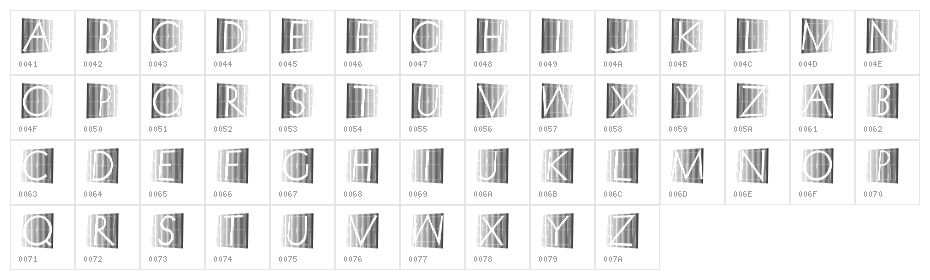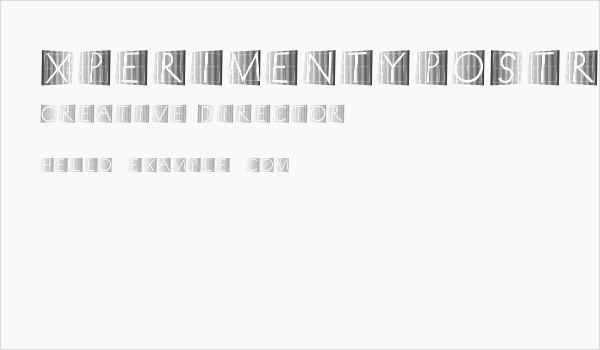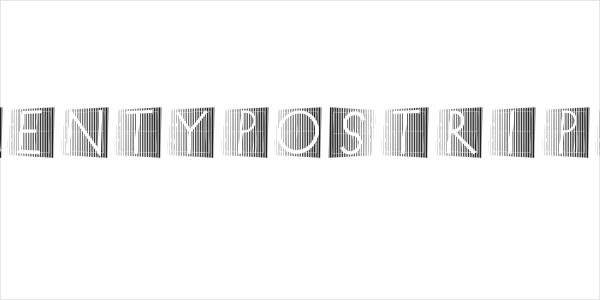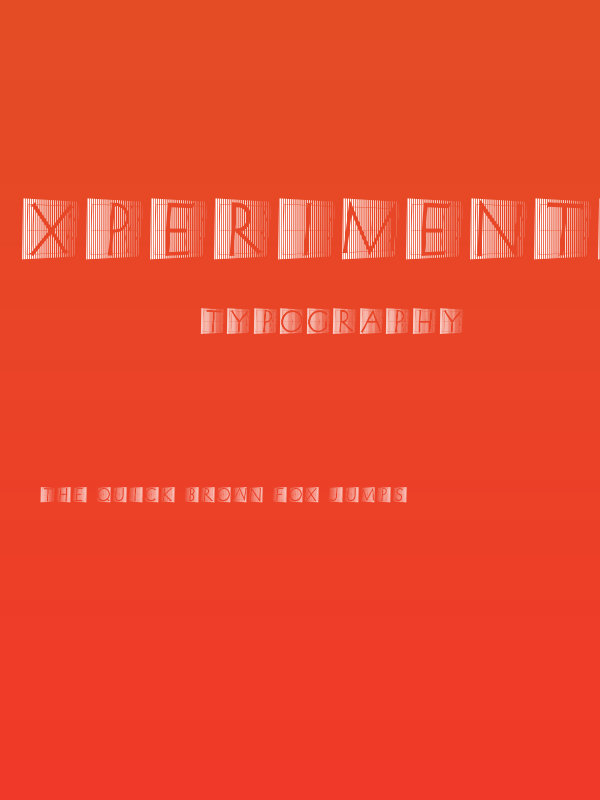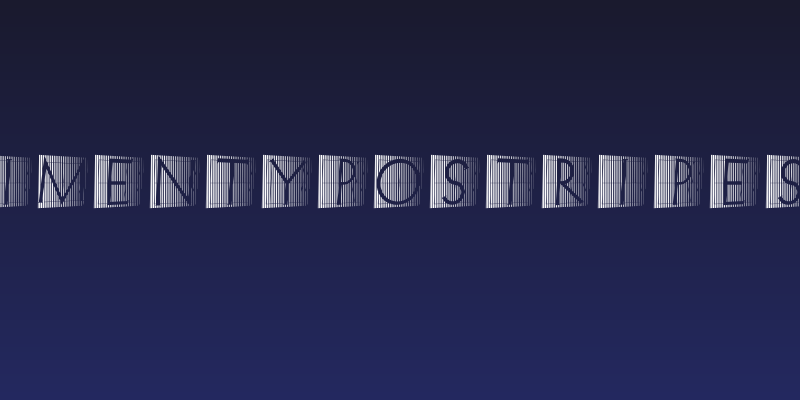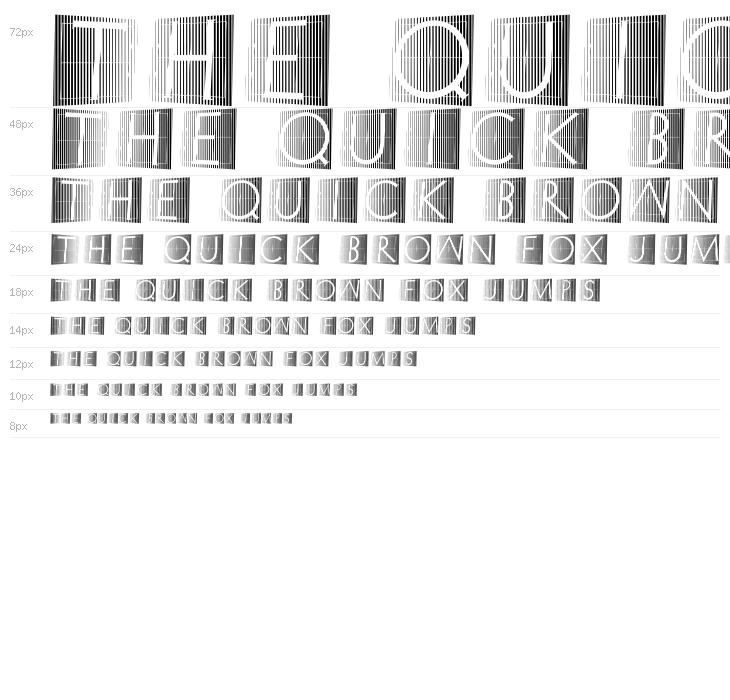
XperimentypoStripes-Two Font
XperimentypoStripes-Two Description
This font features a unique and striking design with vertical stripes running through each character, creating a visually intriguing pattern. The letters are uppercase, with a geometric and modern aesthetic. The striped effect gives a sense of movement and texture, making it stand out for creative and bold design projects. The characters maintain a consistent width, and the spacing between them is normal, allowing for readability despite the decorative nature. The font's style is both contemporary and artistic, suitable for projects that require a distinctive and eye-catching typeface.